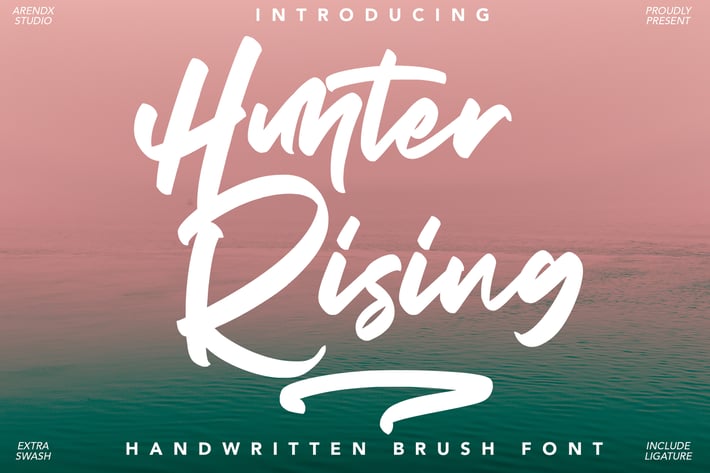
Hunter Rising - Brush Font
Hunter Rising - Brush Font a relaxed and flowing handwritten script font. Incredibly versatile, this font fits a wide pool of designs, elevating them to the highest levels. Add this font to your favorite creative ideas and notice how it makes them come alive!
Feature
A-Z Character Set Numerals & Punctuations (OpenType Standard) Stylistic Alternates Swash Multilingual Ligatures